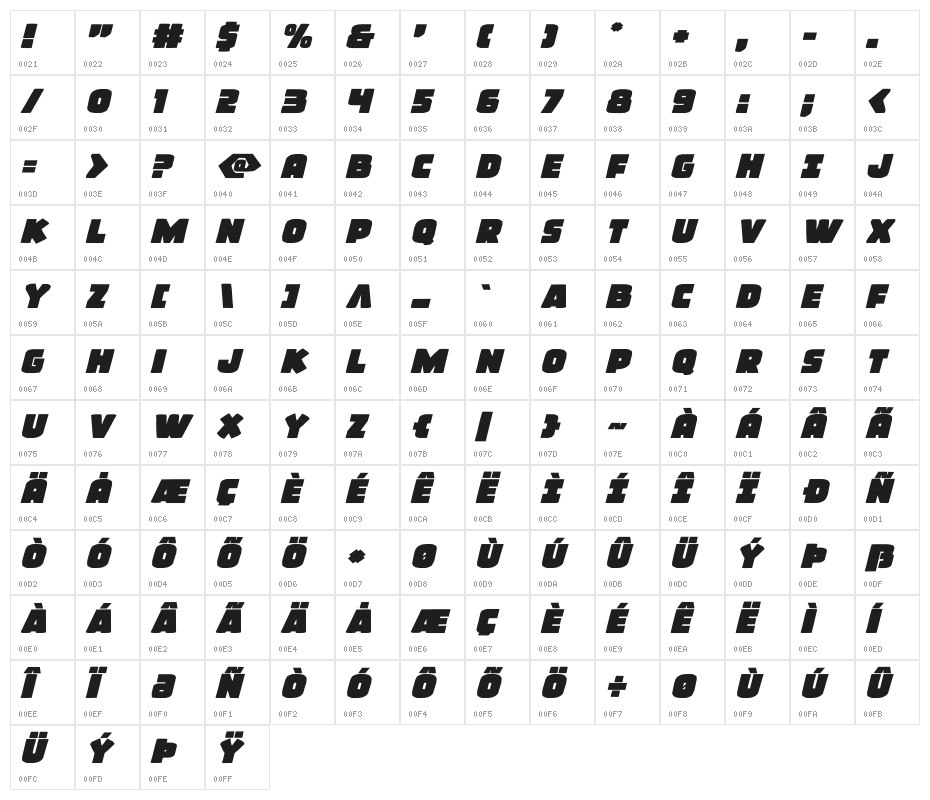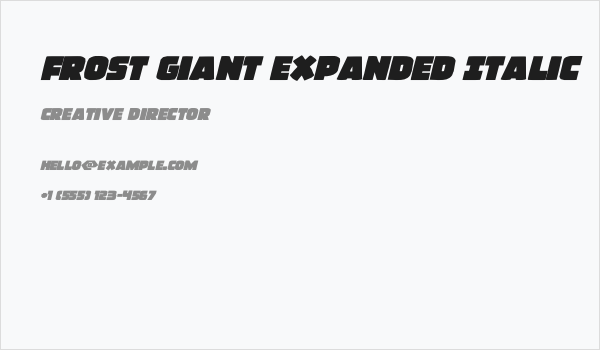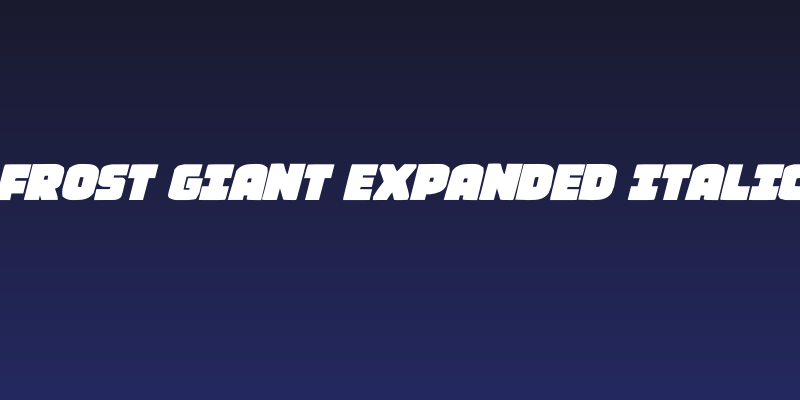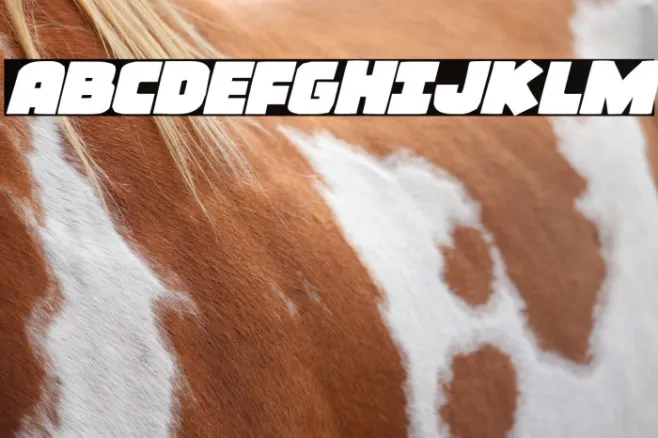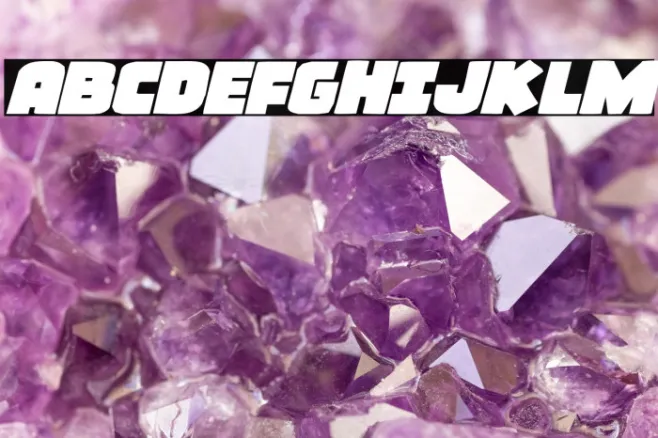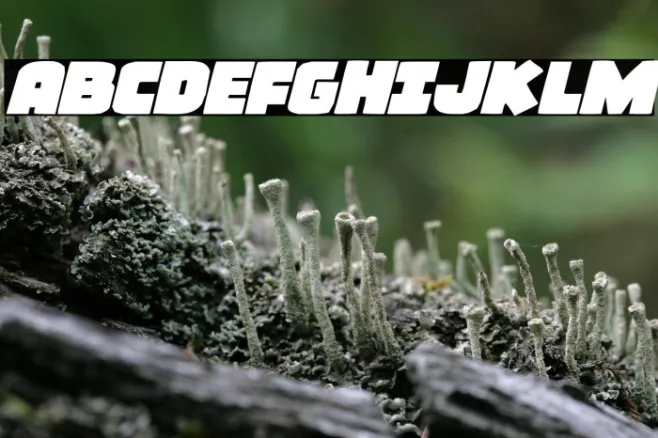
Frost Giant Expanded Italic Font
Frost Giant Expanded Italic Description
This font exhibits a bold and dynamic style with a distinctly expanded and italicized appearance. The characters are robust and wide, giving a sense of strength and impact. The italic slant adds a sense of motion and urgency, making it suitable for attention-grabbing designs. The uppercase and lowercase letters maintain a consistent weight, ensuring readability while emphasizing their bold nature. The numbers and special characters follow the same stylistic cues, providing a cohesive look across all elements. The overall design is modern and assertive, ideal for making a strong visual statement.
| Proposed Projects | Ideal for sports branding, action movie posters, dynamic advertisements, and bold headlines. |